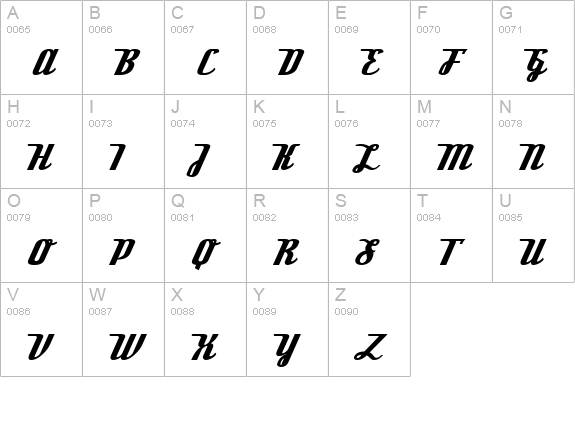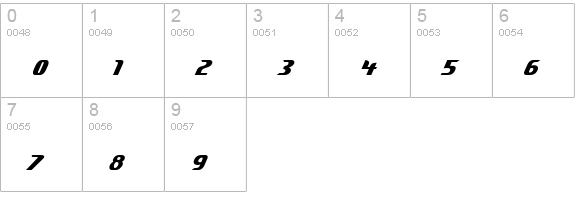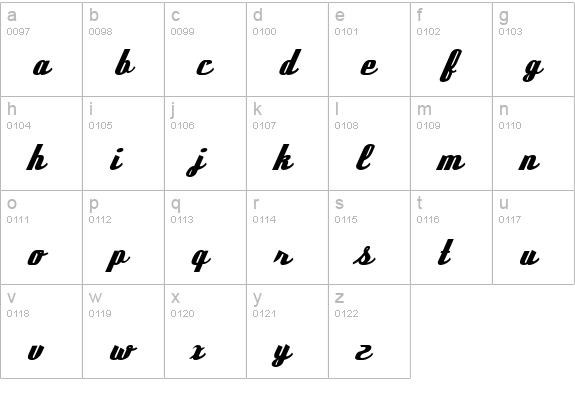
TR Deftone Stylus Font Details
TR Deftone Stylus font is a modern and stylish typeface that exudes elegance and sophistication. With its sleek lines and sharp edges, this font is perfect for adding a touch of class to any design project. Whether you're creating invitations, logos, or signage, TR Deftone Stylus will make your text stand out with its unique charm. The best part about TR Deftone Stylus font is that it is completely free to download at FontsMarket.com. This means you can enjoy the beauty and versatility of this font without having to spend a penny. Don't miss out on the opportunity to elevate your designs with this stunning typeface - download TR Deftone Stylus today and let your creativity shine!